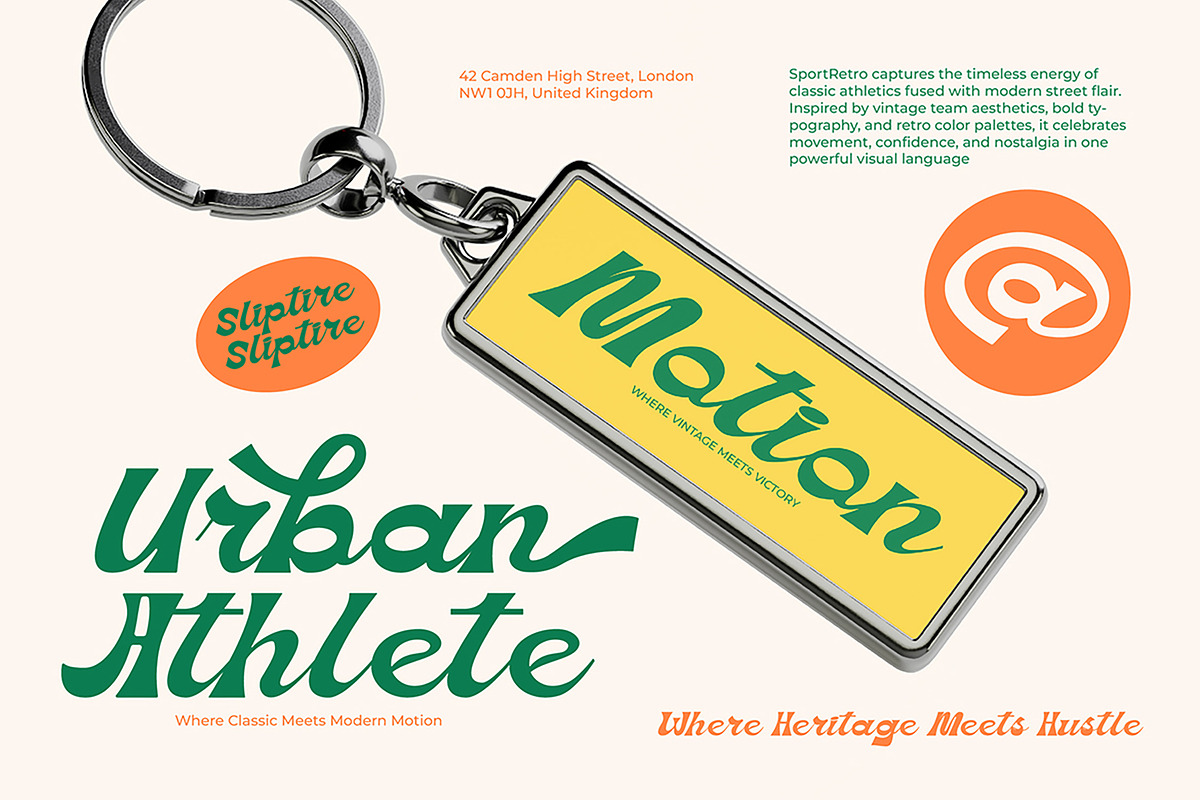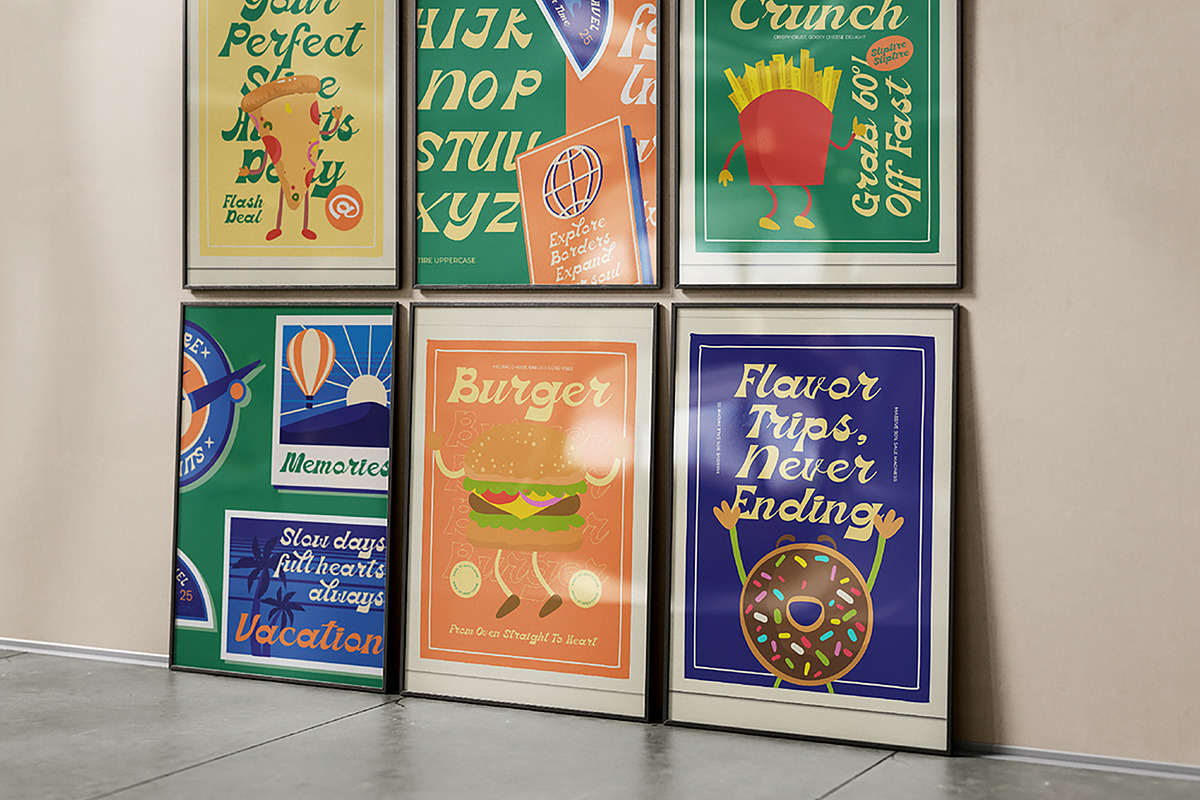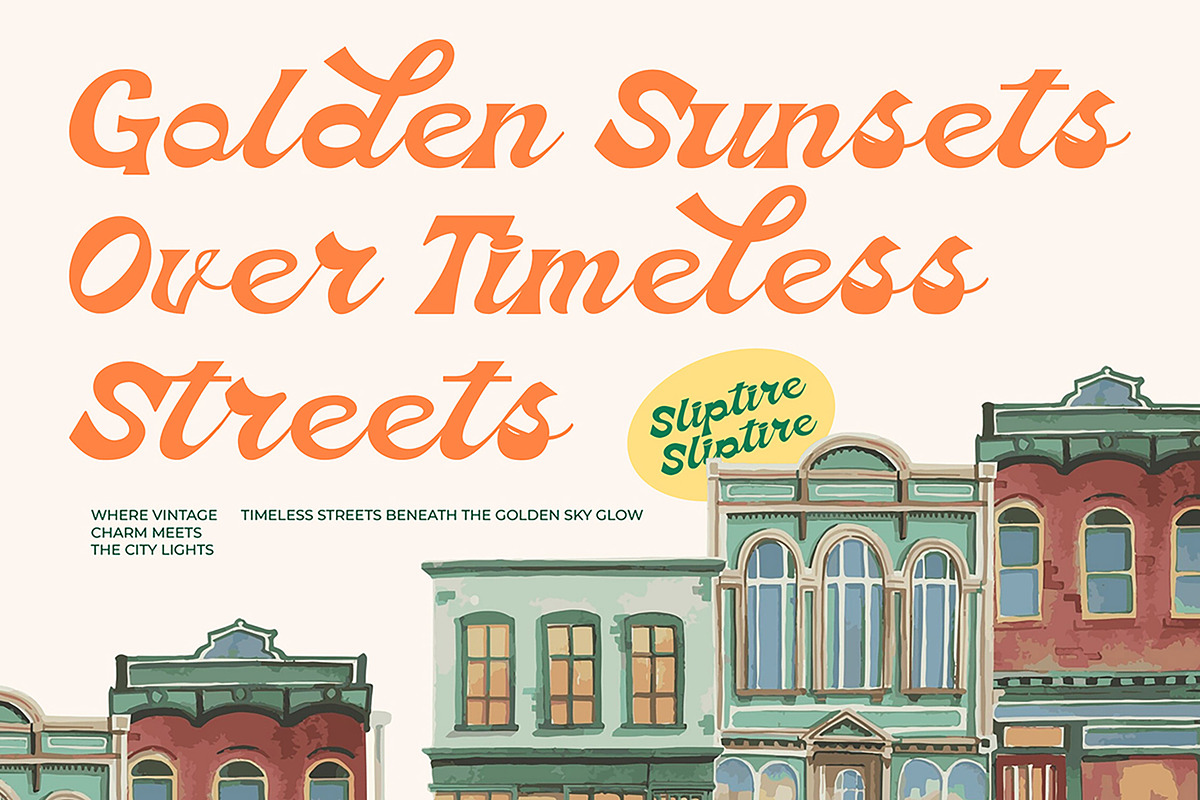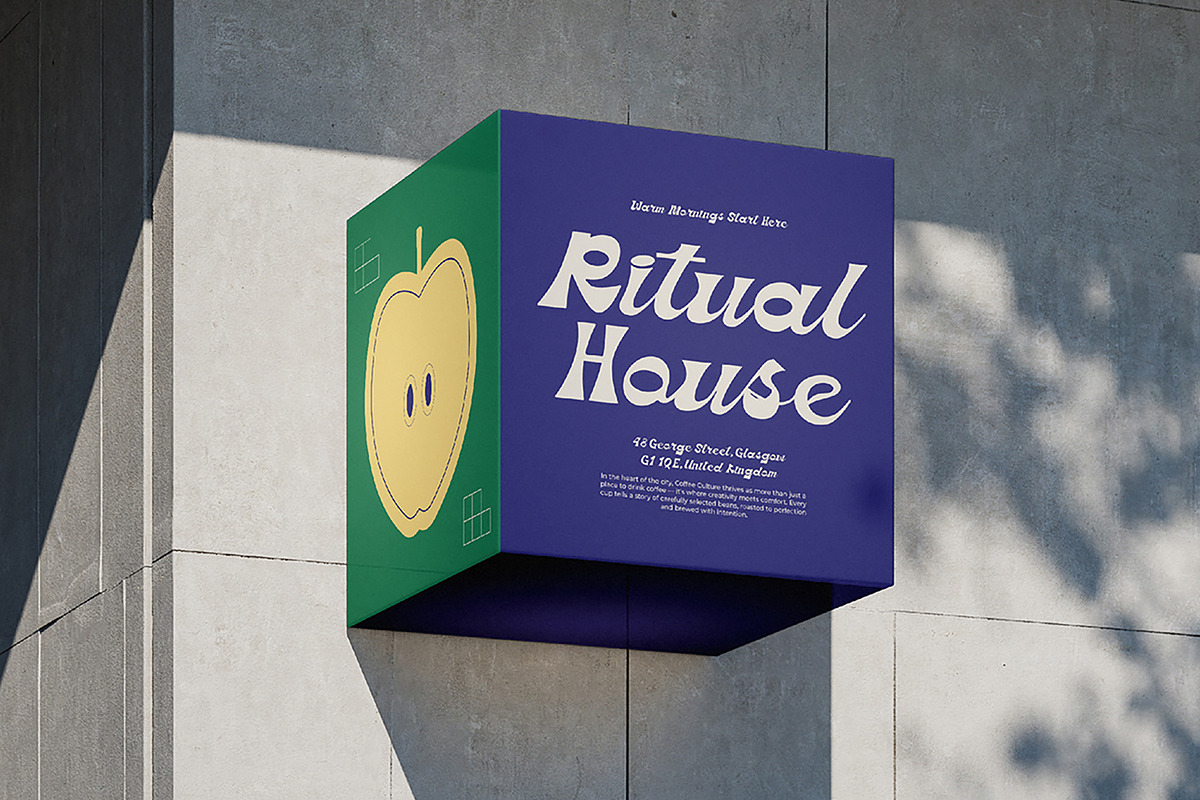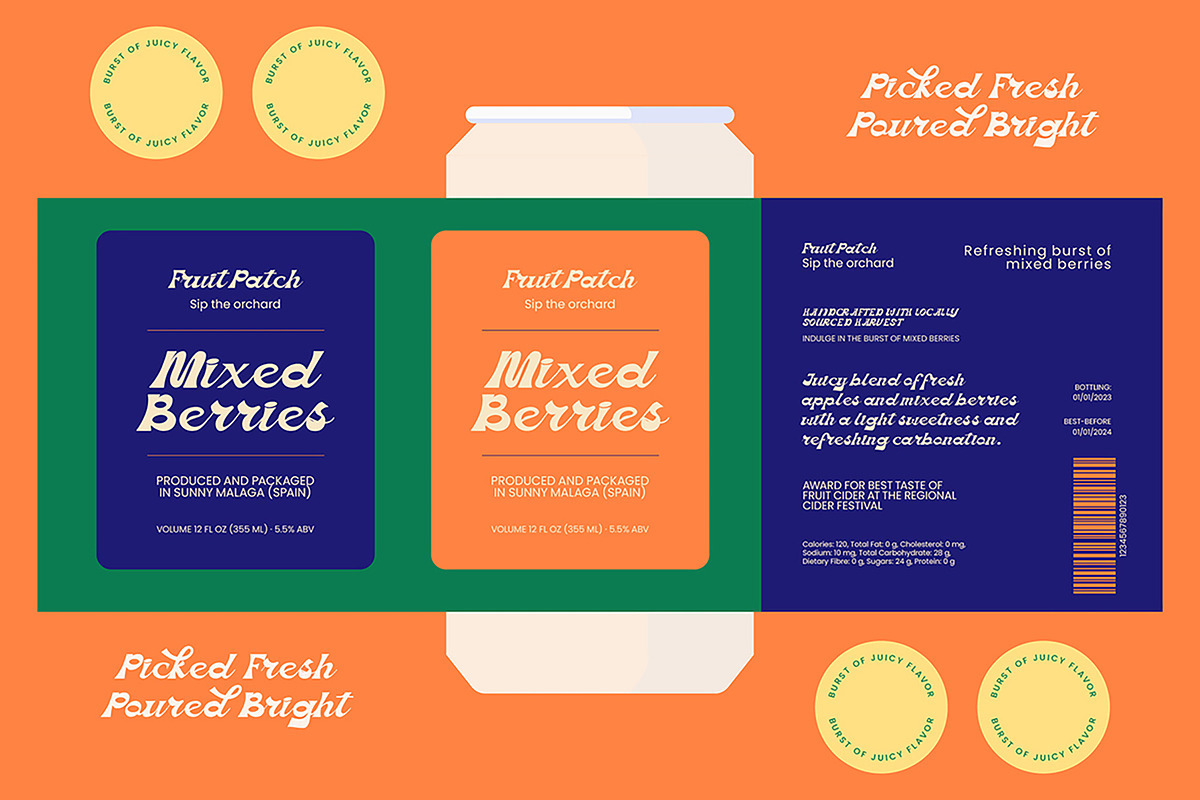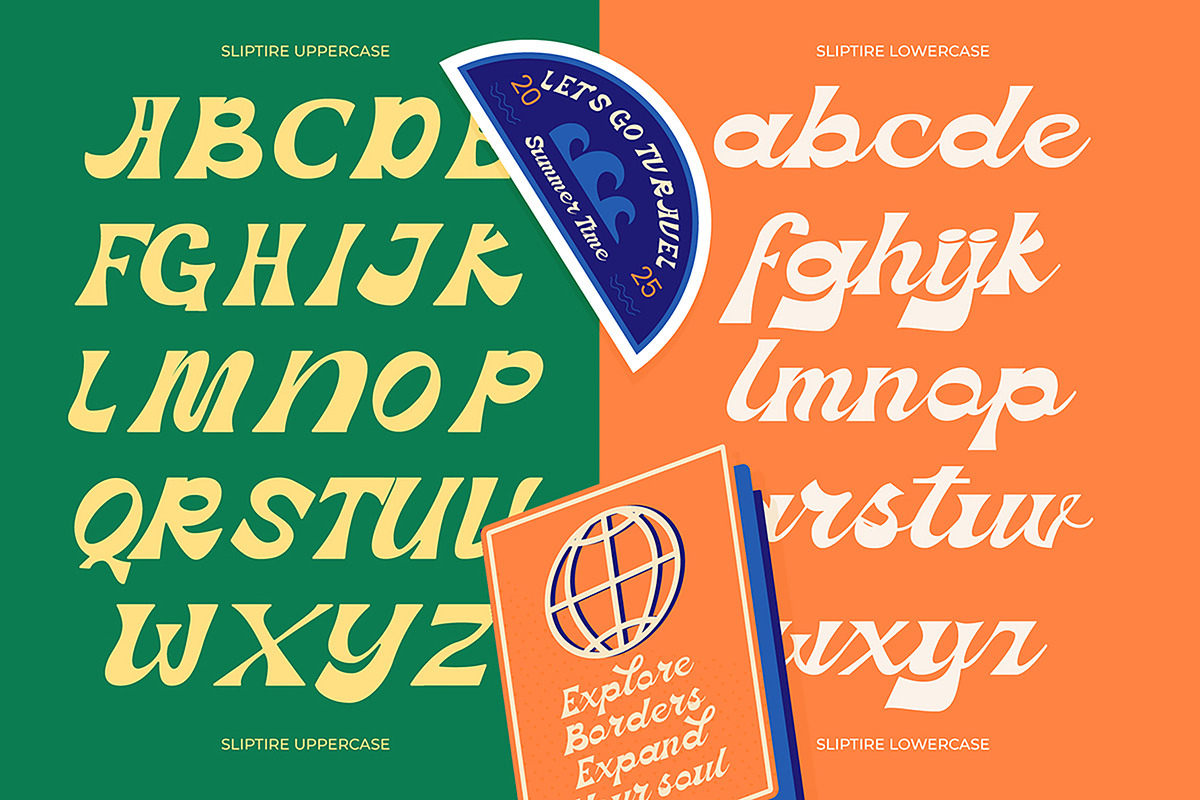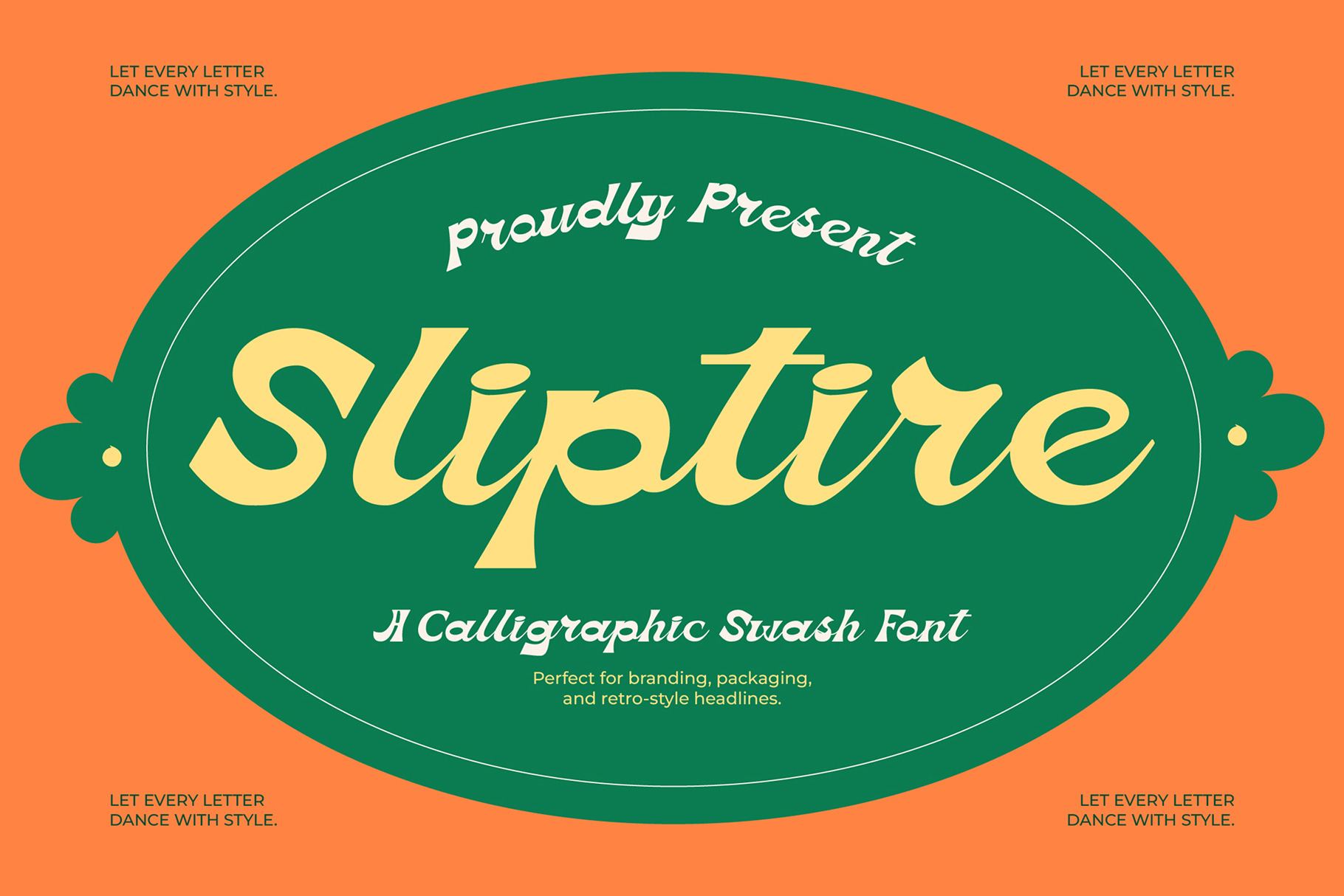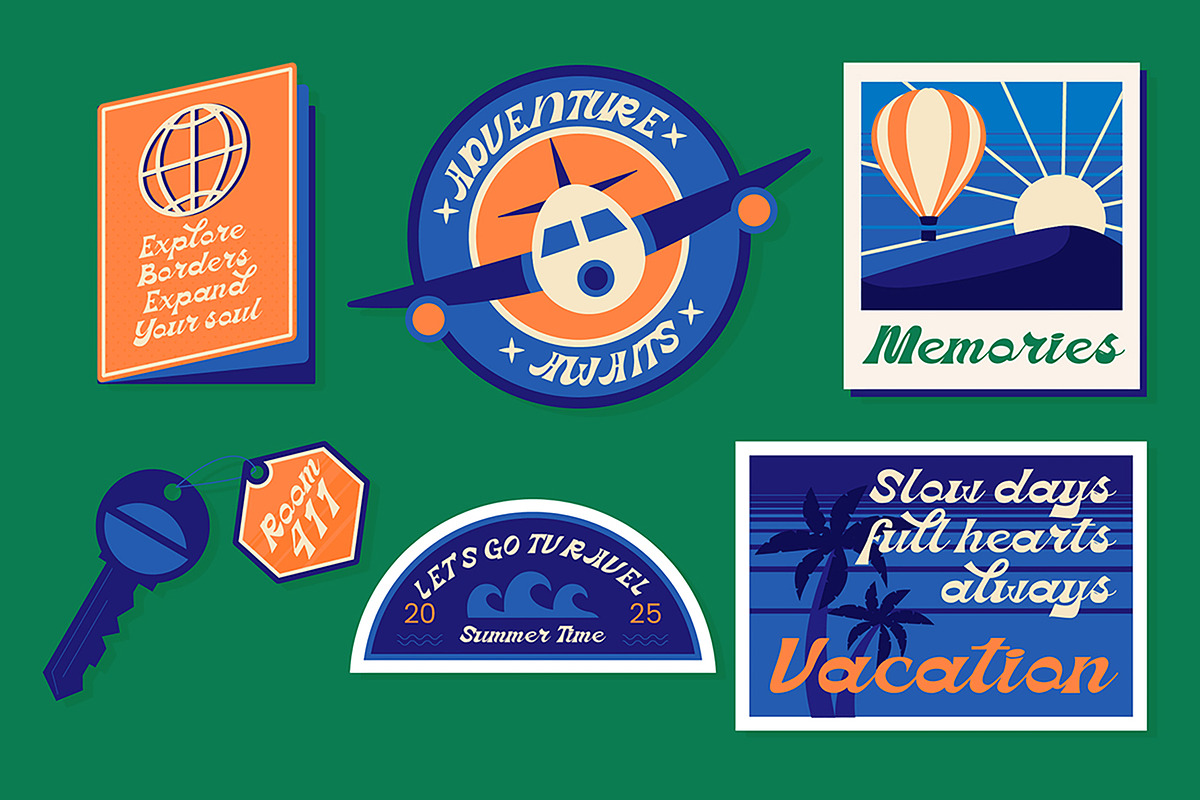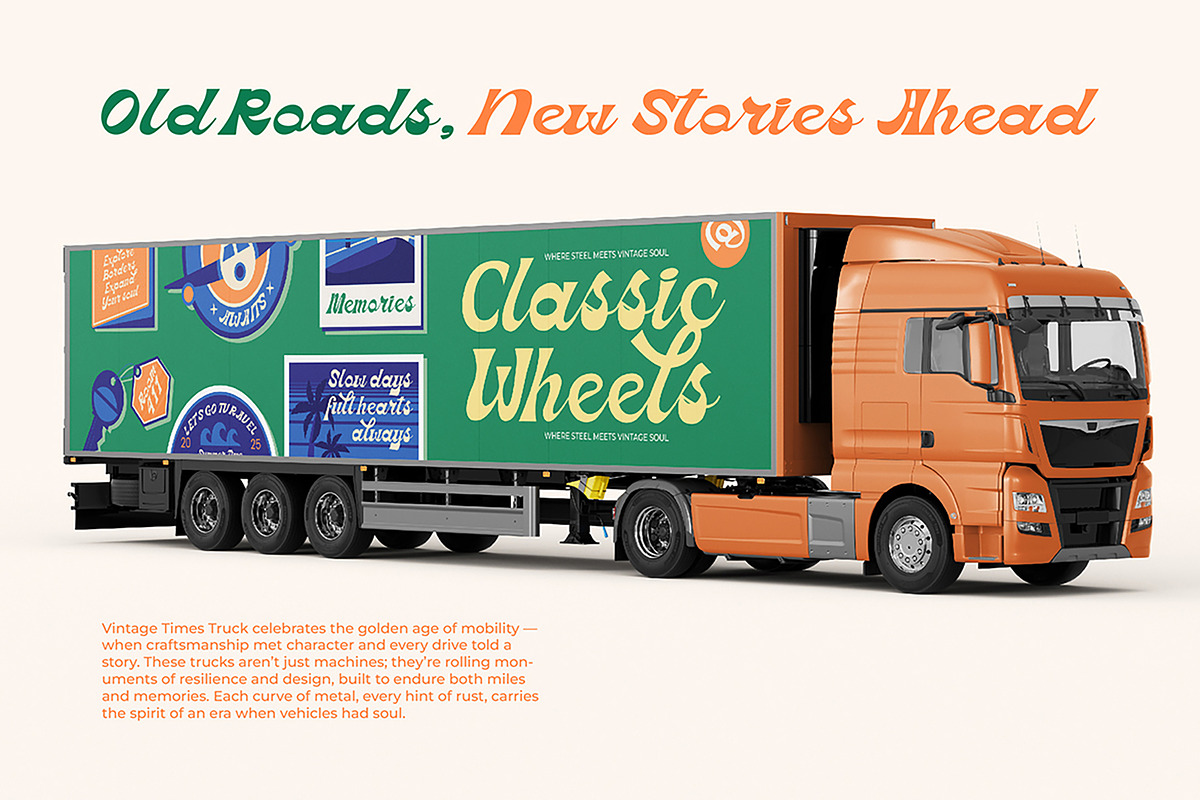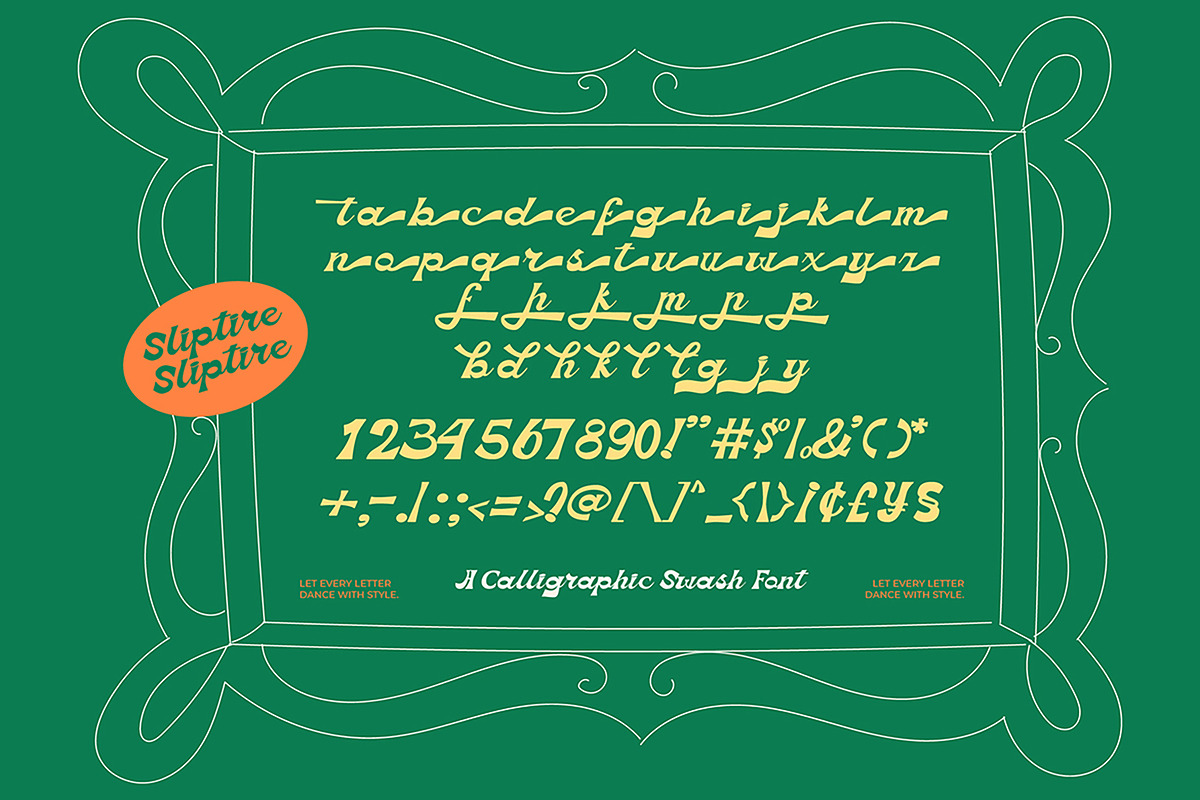
Sliptire Calligraphic Swash Font
Sliptire Retro Swash Font
Sliptire Retro swash font is a unique, modern geometric font with a retro, vintage, bold, unique, elegant, modern, and geometric style. It is a bold vintage script font perfect for branding projects, logos, social media posts, product packaging, labels, etc.